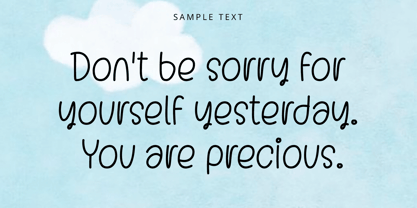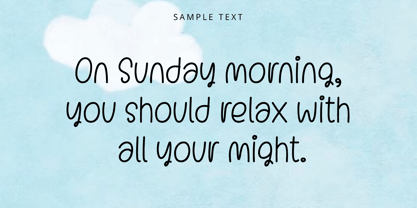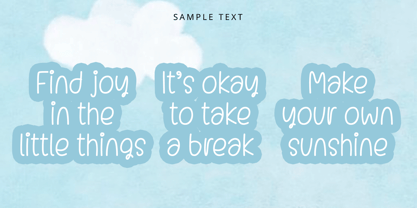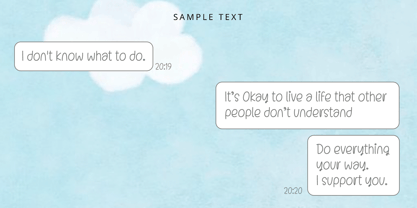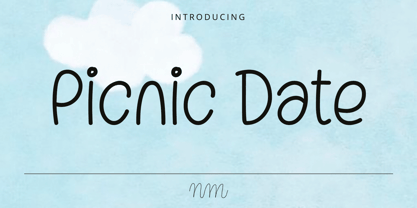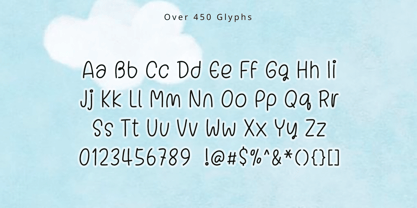
NmPicnicDate
par NM Fonts
La famille de polices NmPicnicDate a été conçue par Minji Noh et publiée par NM Fonts. NmPicnicDate contient 1 styles. En savoir plus sur cette famille
Picnic Date is a cheerful handwritten font inspired by sunny afternoons, fresh air, and simple moments shared with someone special. Its soft, rounded strokes create a relaxed and friendly atmosphere, making every word feel warm and inviting.
Whether you're designing branding, social media posts, planners, greeting cards, invitations, product packaging, or lifestyle content, Picnic Date brings a natural handwritten touch that feels both playful and effortless. Its clean structure also keeps your text easy to read across digital and print projects.
With over 450 glyphs, Picnic Date offers extensive character support for a wide variety of creative applications. From everyday designs to memorable occasions, it's a versatile font that adds warmth, charm, and a personal touch to every project.